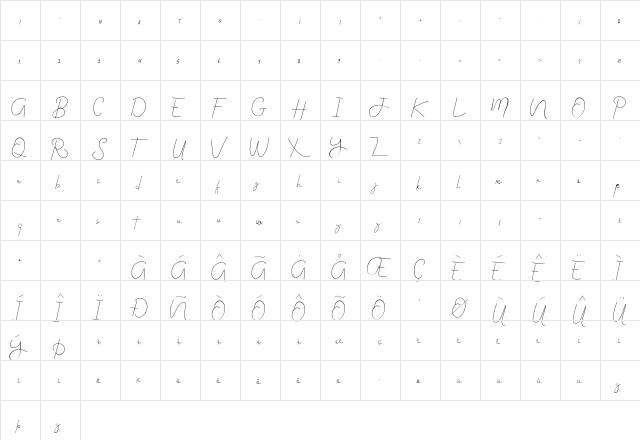
Kanya Regular
| Foundry | Edric Studio |
| Designer | Saila Nurissalma & Suci Anita |
Design Context for Kanya Typeface
Kanya is a composed and adaptable typeface that performs quietly and consistently across a wide range of design contexts.